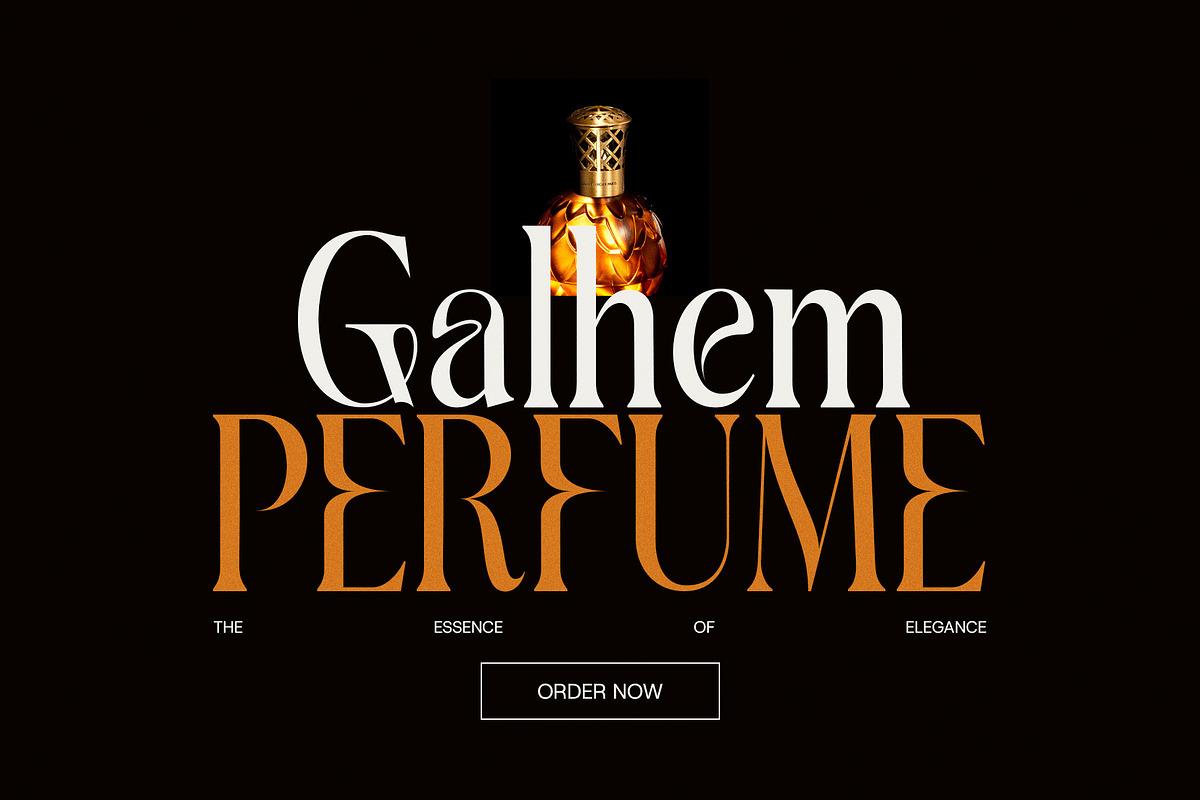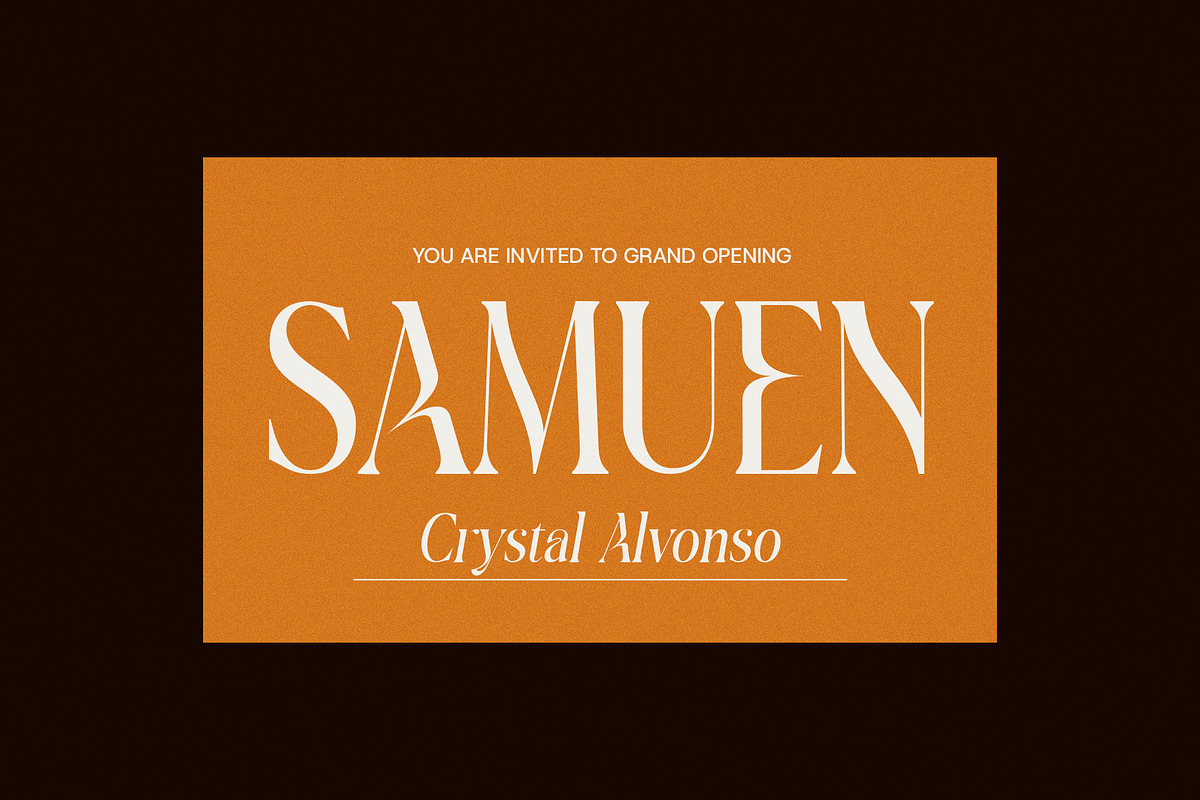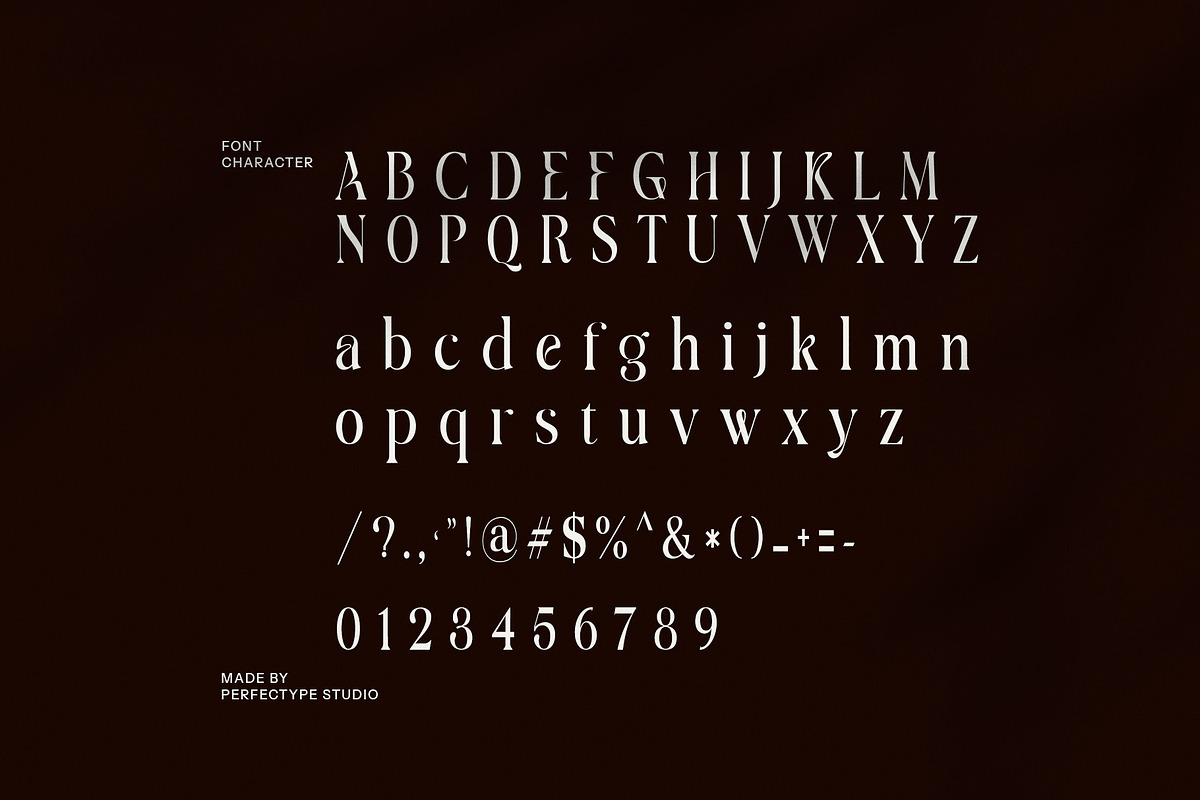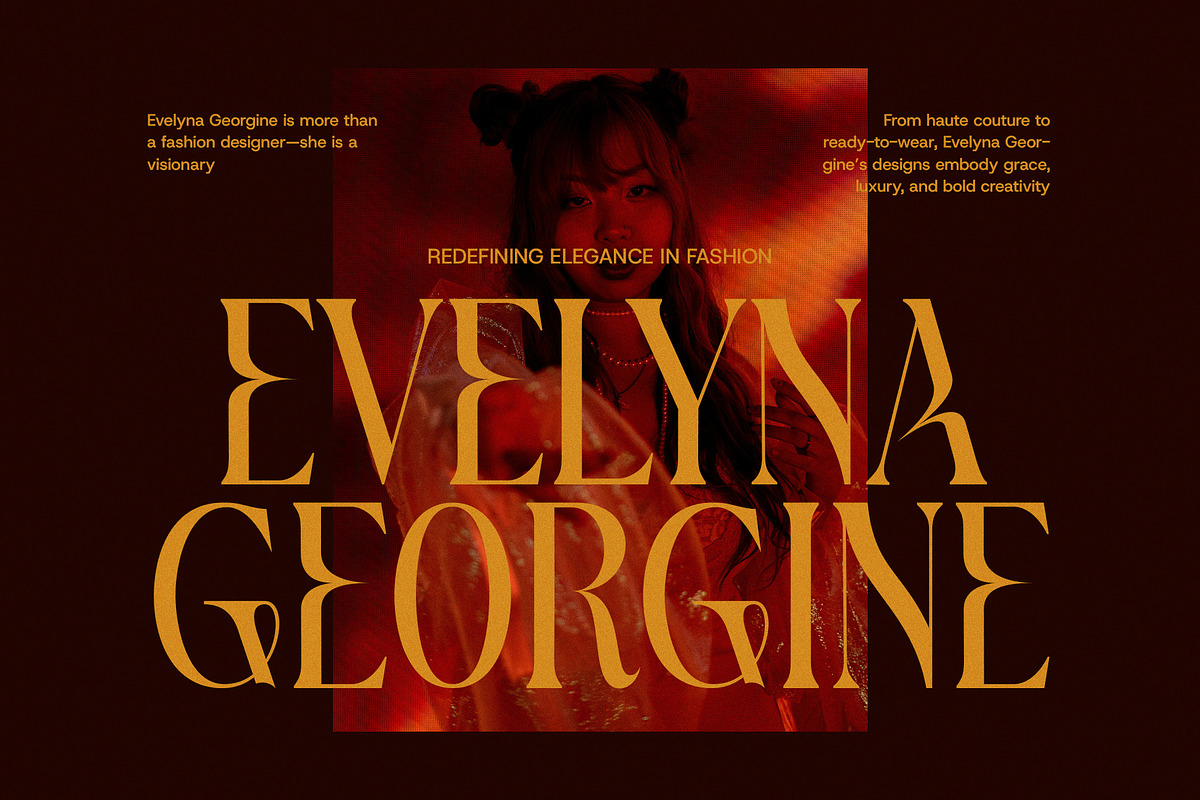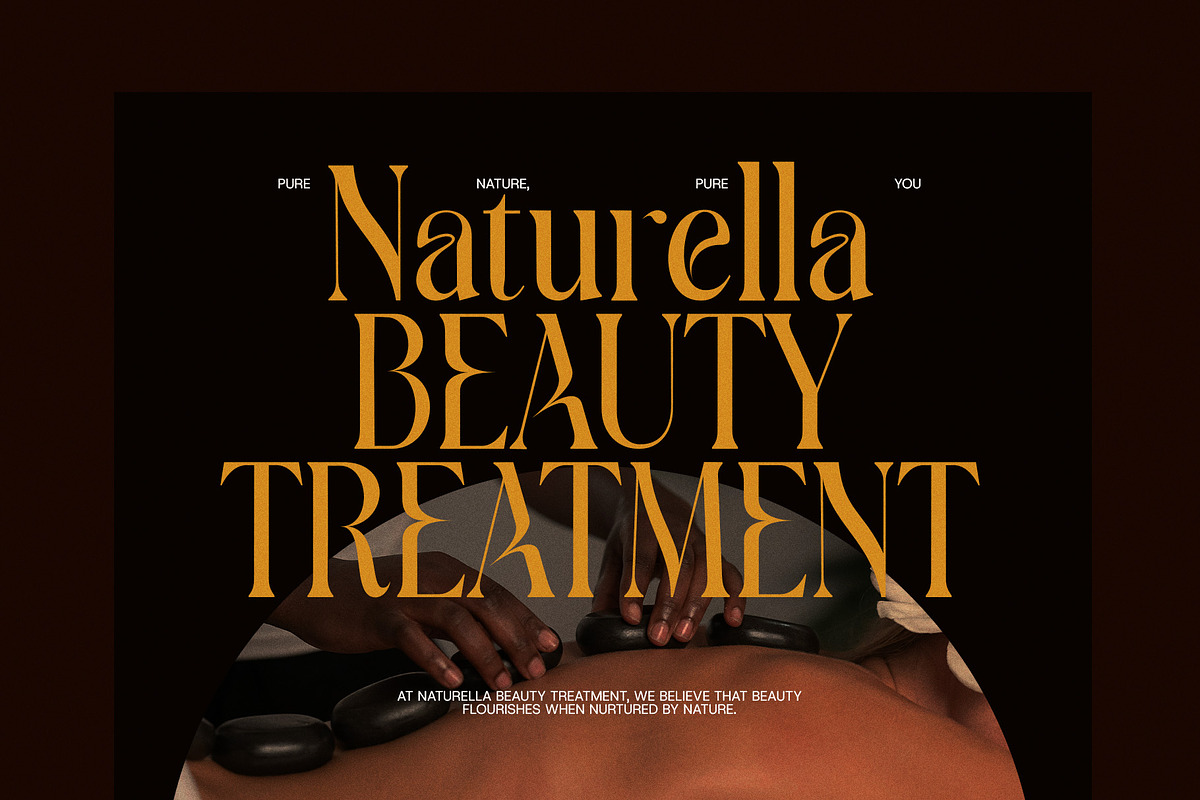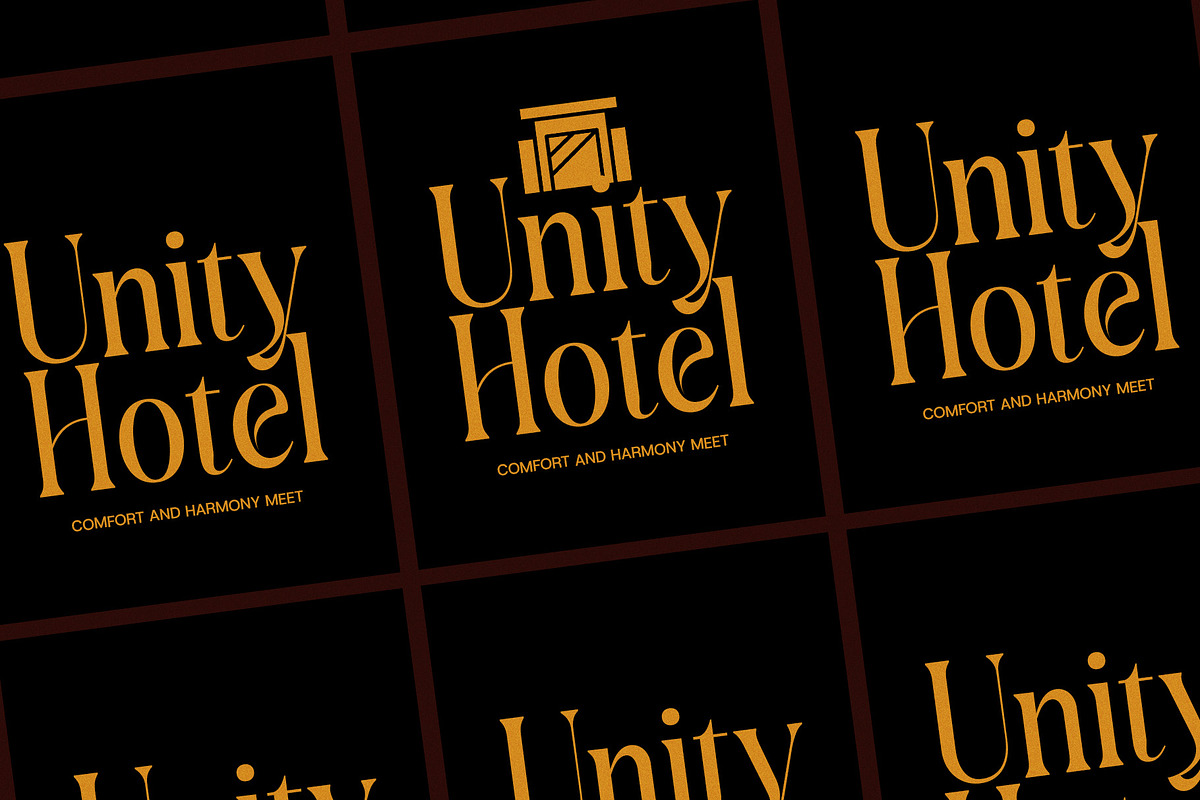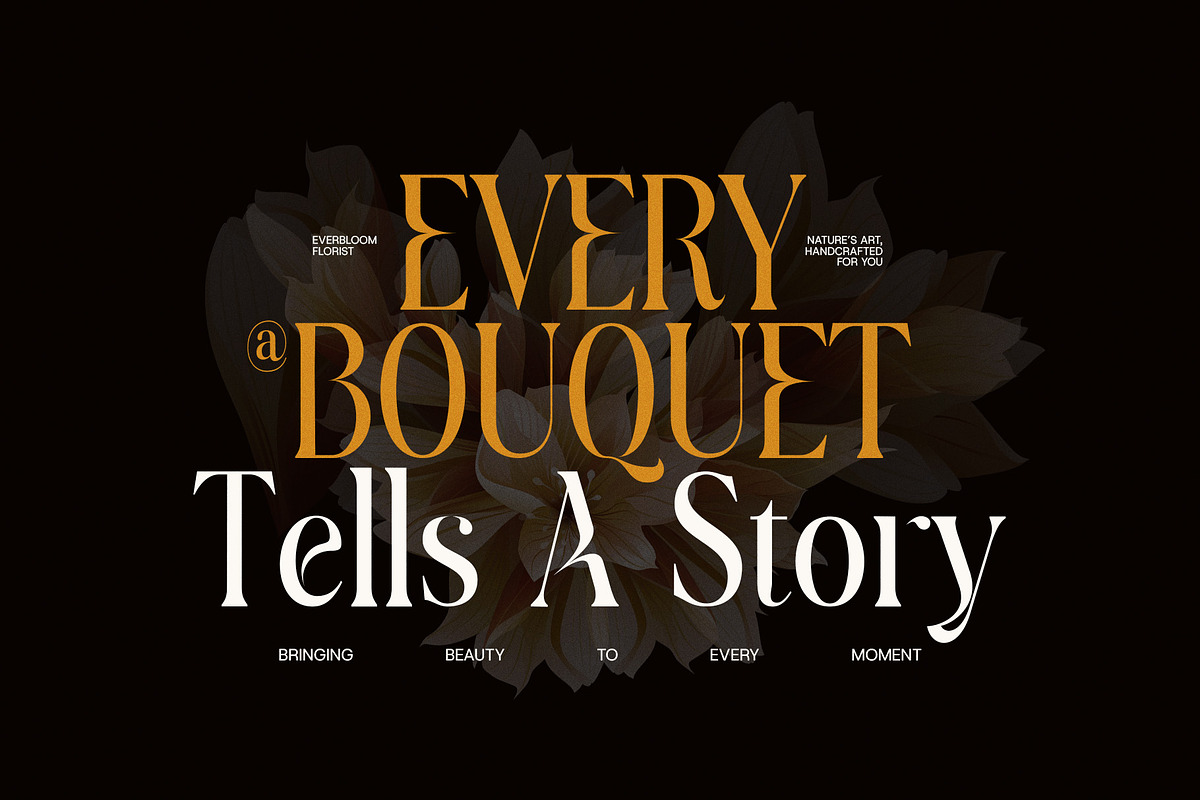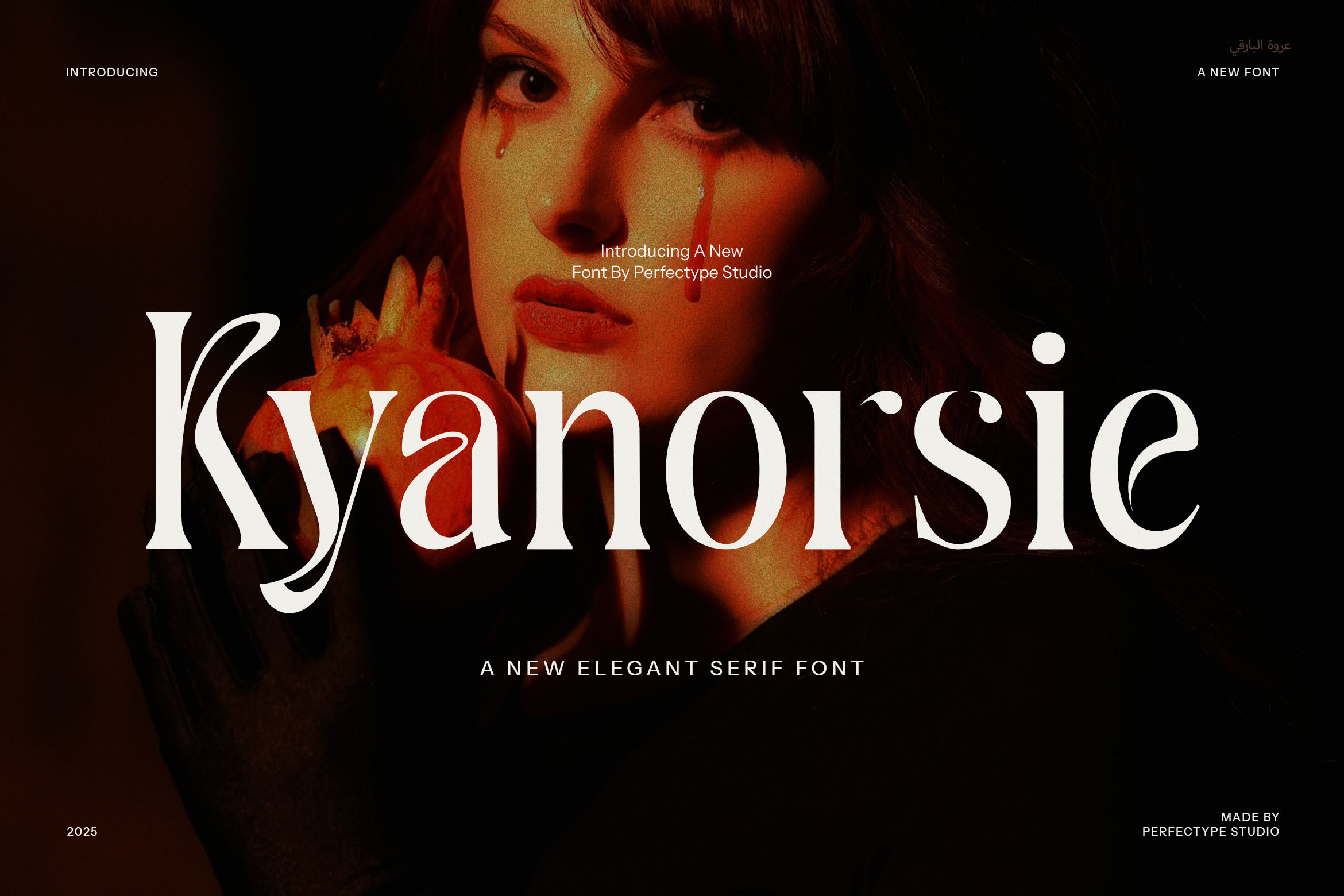
Kyanorsie Elegant Serif Font
Introducing the Kyanorsie Elegant Serif Font, a refined and stylish typeface that effortlessly blends modern aesthetics with timeless elegance. Designed for those who appreciate the finer details of typography, this font is perfect for creating sophisticated and eye-catching designs. Whether you're crafting a luxurious logo, building a sleek website, or designing an editorial layout, Kyanorsie brings a level of grace and professionalism to your work.
The Kyanorsie Elegant Serif Font stands out with its unique blend of classic serif features and contemporary design elements. The carefully crafted serifs, coupled with the smooth curves of the letterforms, deliver a sense of elegance and refinement, making it a great choice for upscale branding and luxury-oriented projects. This font is ideal for projects in need of a polished, high-end aesthetic, such as boutique logos, fashion campaigns, or premium product packaging.
What truly sets Kyanorsie apart are its stunning ligatures and alternate characters. These specially designed elements add a distinct flair to your typography, allowing you to create seamless and visually appealing combinations that enhance the beauty of your text. The ligatures flow naturally between characters, lending a graceful, cohesive look, while the alternate forms offer versatility, letting you customize the design to suit your unique creative vision. This flexibility makes Kyanorsie a perfect fit for designers looking to add a personal touch to their work.
Whether you’re working on a food brand, a high-end boutique, or a refined magazine layout, Kyanorsie brings an air of sophistication to every project. Its elegance makes it a go-to choice for luxury brands, editorial designs, advertisements, and websites that require a professional, yet visually striking appearance. The font’s versatility shines through in both print and digital applications, providing a timeless and stylish solution for a wide range of design needs.
With its balanced and versatile design, the Kyanorsie Elegant Serif Font is a must-have for those looking to elevate their projects with a sense of refinement and modernity. This font seamlessly marries traditional serifs with contemporary details, making it the perfect tool for designers seeking a sophisticated yet accessible typeface. Let Kyanorsie bring a touch of elegance and charm to your next creative endeavor.